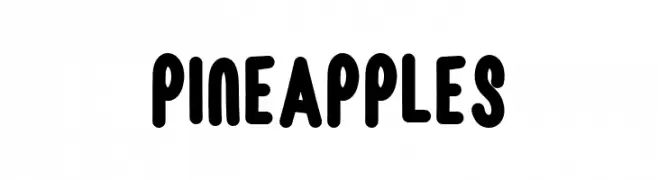
( Fonts by Danar Nugroho )
A playful, handwritten script font with heart accents and smooth flow.
( Fonts by scratchones )
A lively, expressive handwritten font with flowing, interconnected letterforms.
( Fonts by MJType )
A bold, playful handwritten font with rounded, consistent strokes.
( Fonts by D K )
A playful, handwritten font with bold, rounded characters and dynamic embellishments.
( Fonts by Hanna Bie )
A bold, playful font with rounded edges and a hand-drawn feel.
( Fonts by Md Shohail Bhuian )
Playful and rounded sans-serif font.
( Fonts by Nabila )
Playful handwritten font with a casual style.
( Fonts by PiPi Creative )
Playful, bold handwritten script font.
( Fonts by Fillo Graphic )
Playful, rounded handwritten font.
( Fonts by Md Shohail Bhuian )
Playful and rounded handwritten font.